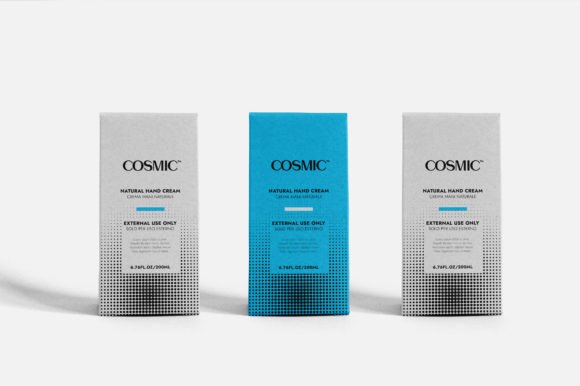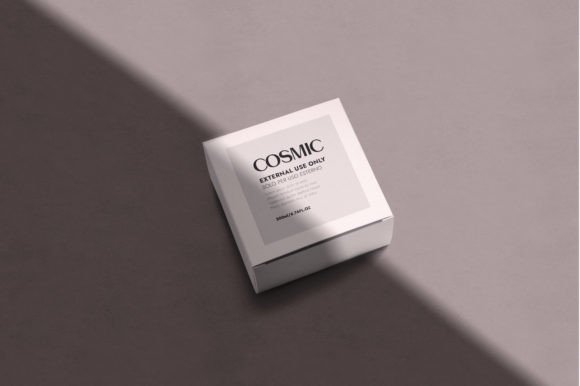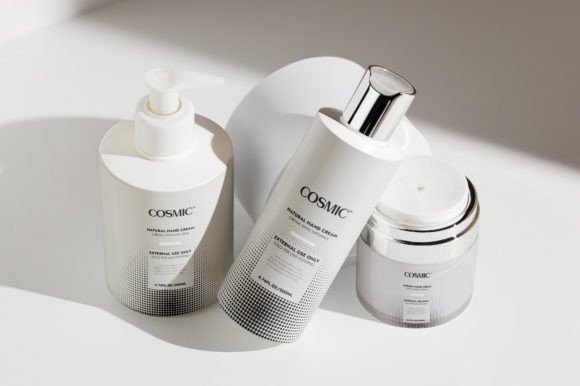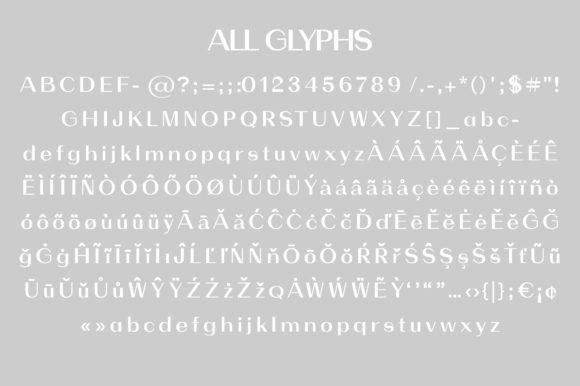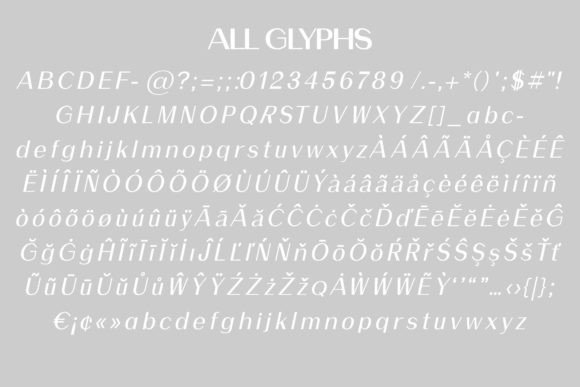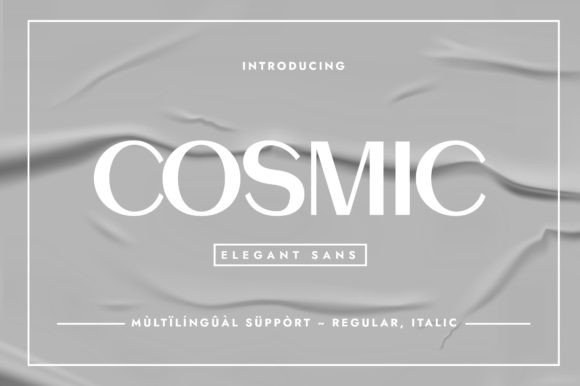
Introducing Cosmic Font: Elevate Your Designs with Elegance
In the world of design, typography plays a crucial role in conveying the message and aesthetic of a brand or product. For designers and crafters seeking a clean, elegant, and versatile font, Cosmic Font is an excellent choice. This sans serif typeface is specifically designed to bring a touch of sophistication to various design projects, from minimalistic perfume labels and cosmetics packaging to invitations, weddings, fashion design, and menus.
The Concept Behind Cosmic Font
Cosmic Font was conceived with a clear vision: to create a typeface that embodies elegance and simplicity. The name “Cosmic” reflects the font’s celestial and refined qualities, making it perfect for designs that require a sleek and modern look. While it was initially intended for use in the beauty and cosmetics industry, its versatility allows it to shine in a wide range of applications.
Key Features of Cosmic Font
- Clean and Sans Serif: Cosmic Font boasts a clean and minimalist design, free from unnecessary embellishments. Its sans serif nature gives it a contemporary and streamlined appearance, suitable for designs that demand clarity and sophistication.
- Elegant and Refined: The font’s elegant curves and balanced proportions make it an excellent choice for projects that require a touch of luxury and refinement. Whether it’s for a high-end perfume label or a wedding invitation, Cosmic Font delivers a sophisticated look.
- Versatile: One of the standout features of Cosmic Font is its versatility. It can seamlessly integrate into various design themes, including fashion, beauty, weddings, and more. This adaptability makes it a valuable asset for designers who work on diverse projects.
- Easy to Use: Cosmic Font is designed to be user-friendly, allowing designers to achieve great results with minimal effort. Its clear and legible design ensures that it communicates effectively across different mediums, from digital platforms to print materials.
Applications of Cosmic Font
Cosmic Font’s range of applications is vast, making it a valuable addition to any designer’s toolkit. Here are some of the areas where Cosmic Font truly excels:
- Perfume and Cosmetics Packaging: The font’s minimalistic and elegant design makes it a perfect fit for perfume labels and cosmetics packaging, where standing out on crowded shelves is crucial.
- Weddings and Invitations: For wedding invitations, menus, and other ceremonial materials, Cosmic Font offers a sophisticated and romantic feel that sets the tone for a memorable event.
- Fashion Design: In the world of fashion, presentation is everything. Cosmic Font can be used in fashion magazines, lookbooks, and branding to convey a sense of style and elegance.
- Menus and Restaurant Branding: For restaurants and cafes looking to rebrand or launch a new menu, Cosmic Font provides a clean and upscale look that can appeal to a wide audience.
Tips for Using Cosmic Font Effectively
To make the most of Cosmic Font, consider the following tips:
- Pair with Complementary Fonts: While Cosmic Font is elegant on its own, pairing it with complementary fonts can add depth and interest to your designs.
- Experiment with Colors: The font’s versatility extends to its use with different colors. Experiment with various color schemes to find the perfect match for your design.
- Play with Sizes and Weights: Cosmic Font comes in different sizes and weights. Playing with these variations can help you create visual hierarchy and emphasize key elements in your design.
Cosmic Font is more than just a typeface; it’s a design solution that brings elegance, simplicity, and versatility to the table. Whether you’re a designer working on a high-end cosmetics brand, a crafty individual creating personalized wedding invitations, or a business owner looking to elevate your brand’s aesthetic, Cosmic Font is an excellent choice. Its clean lines, elegant curves, and adaptability make it a valuable asset for anyone looking to add a touch of sophistication to their designs. Give Cosmic Font a try and discover how easy it is to achieve great results with minimal effort.